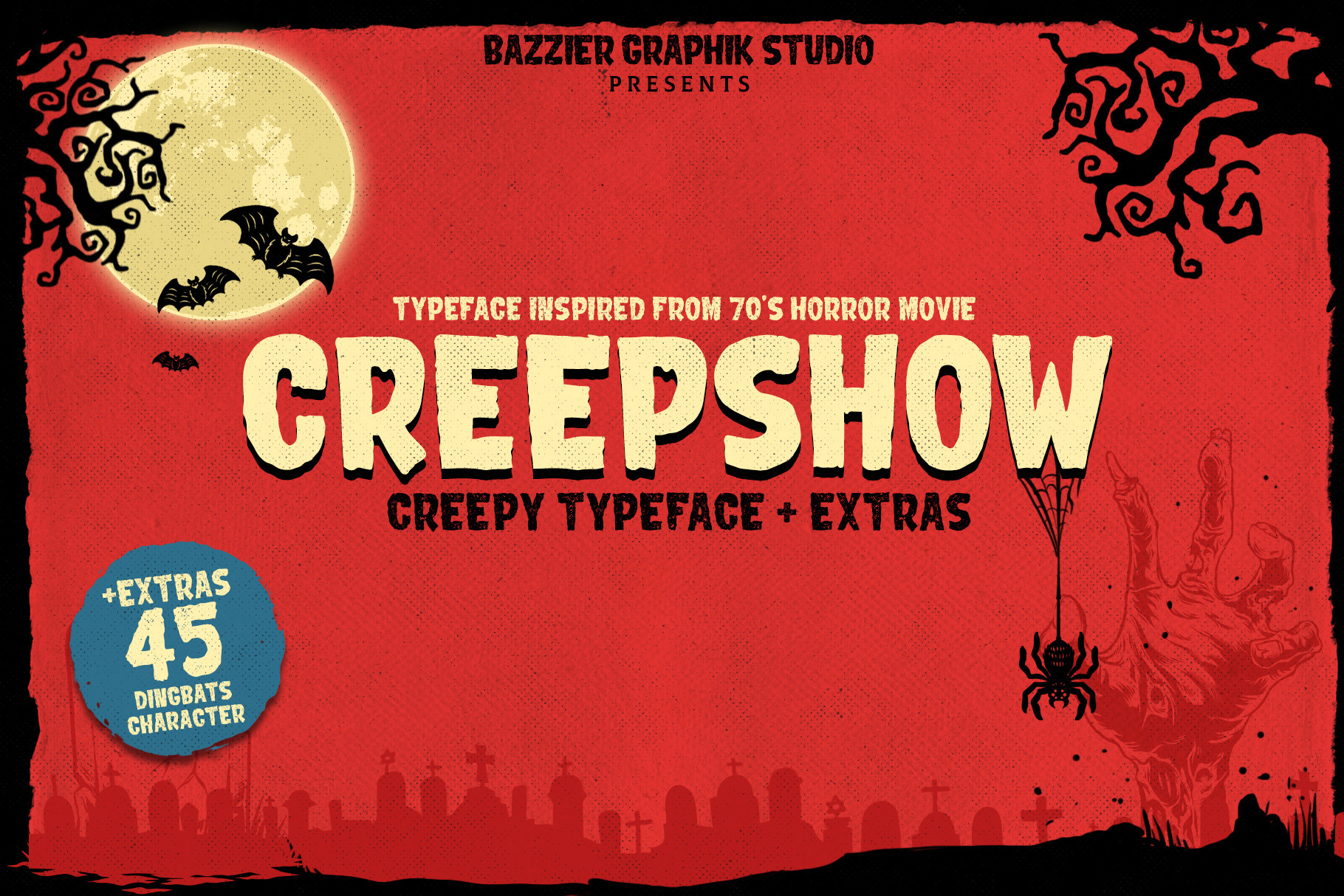
CREEPSHOW_Halloween font
Inspired form vintage horror movie, Bazzier Graphik Studio presenting the creepy atmosfer into new typeface design called 'Creepshow'. This font suitable for your Horror concept, Halloween, Day of the Dead, Movie poster etc.
Creepshow font package is including the Regular version, Grunge version and extra bonus Dingbat.